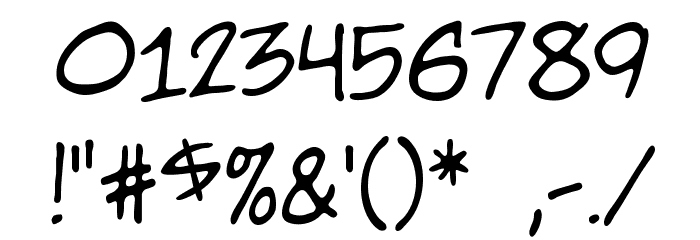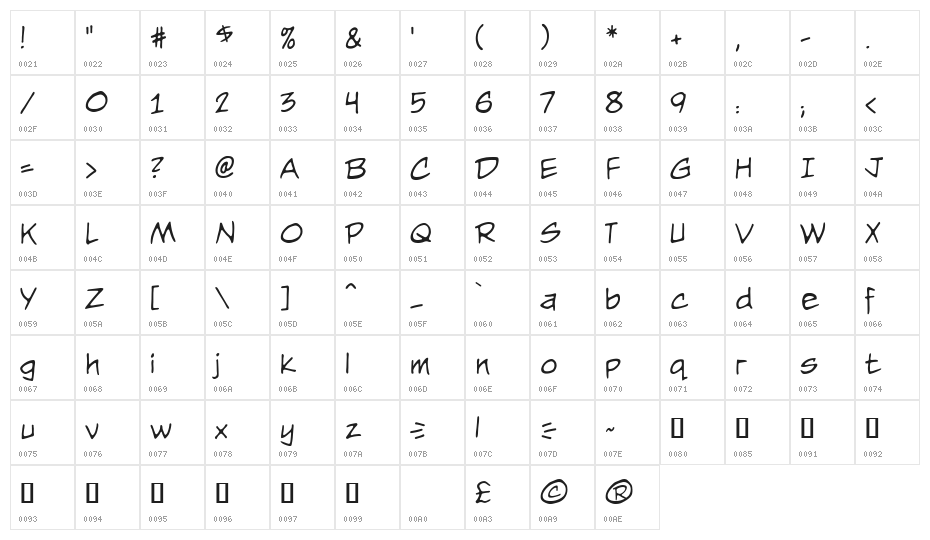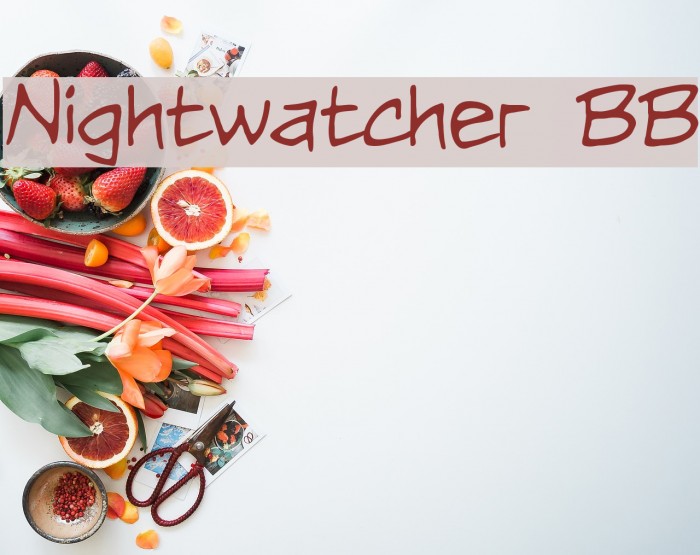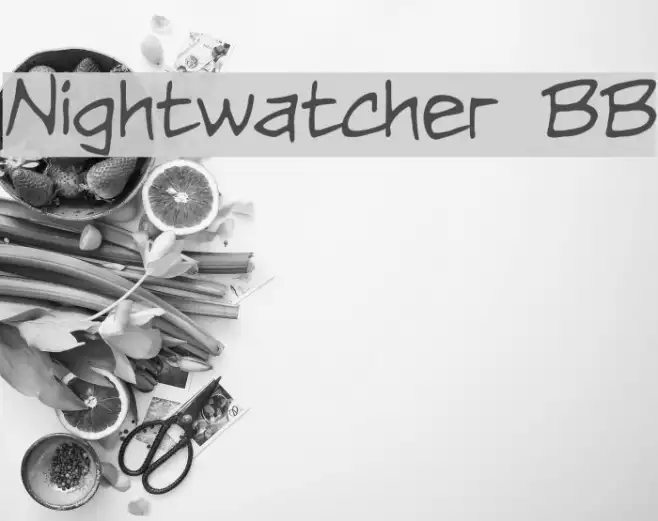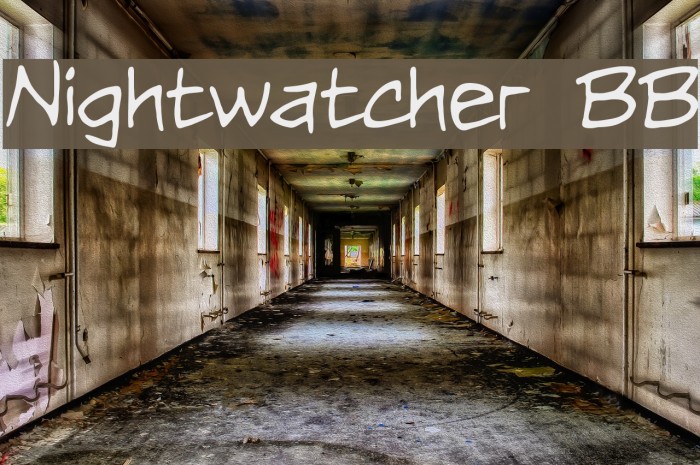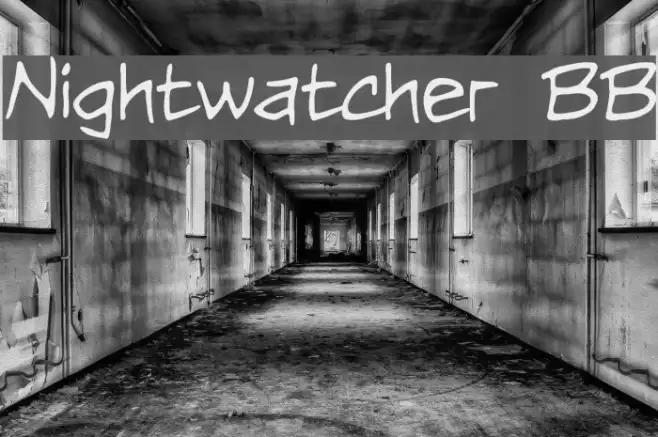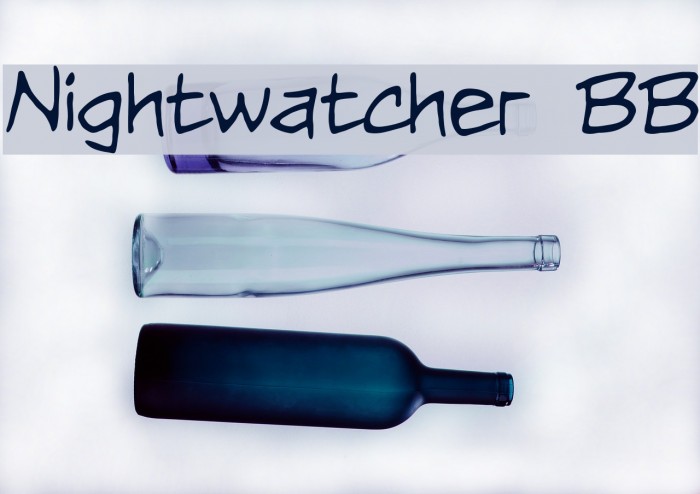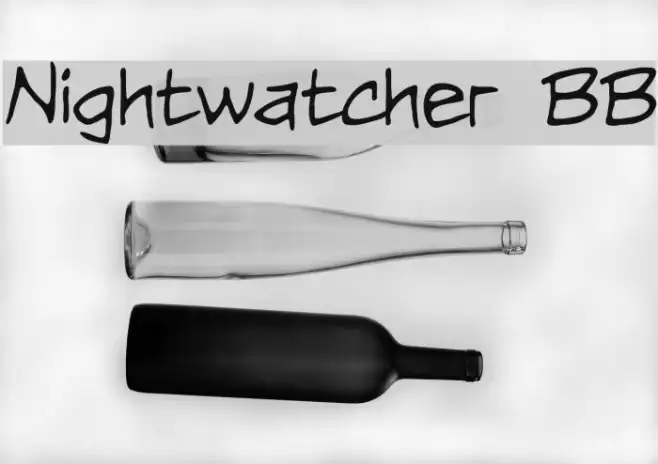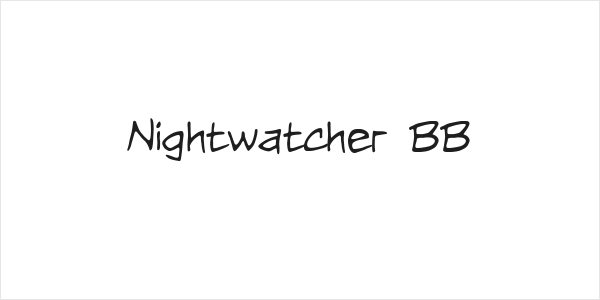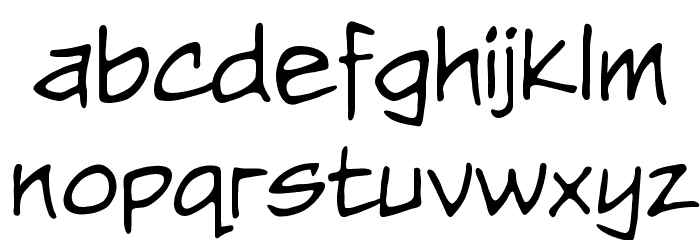
Nightwatcher BB Font
Nightwatcher BB Description
This font exhibits a bold, handwritten style with a playful and casual appearance. The characters are slightly slanted, giving it a dynamic and energetic feel. The strokes are consistent in thickness, providing a uniform look across all letters and numbers. The uppercase and lowercase letters maintain a cohesive style, with rounded edges and a smooth flow. The numerals are clear and legible, matching the overall aesthetic. Special characters are included, maintaining the same playful and informal style, making this font versatile for various creative projects.